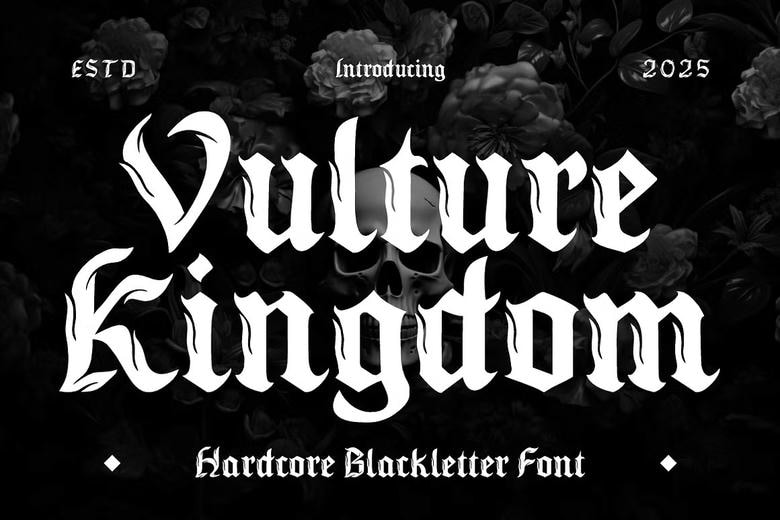
Vulture Kingdom Font
Vulture Kingdom Font is a legionary blast furnace blackletter font owing its existence to rage and defiance. A font with sharp curves, the authority of the middle ages and the radical gothic is difficult to envisage in another design. The aggressive edges and the flame inspired details make it the most suitable design to use in metal bands, underground zines, streetwear branding and occult-themed packaging.
Created to draw, Vulture Kingdom loves contrast- heavy brush strokes and elaborate spurs quickly jump out. Used on albums, horror movie names, event promotions or tattoo-like graphics, the font adds a frightening intensity to the message. It also contains all the upper, lowercase, numbers and the necessary punctuating marks. Wrestle the design share to your favor with a font that shouts dominance and destruction in the next.
Vulture Kingdom Blackletter Font